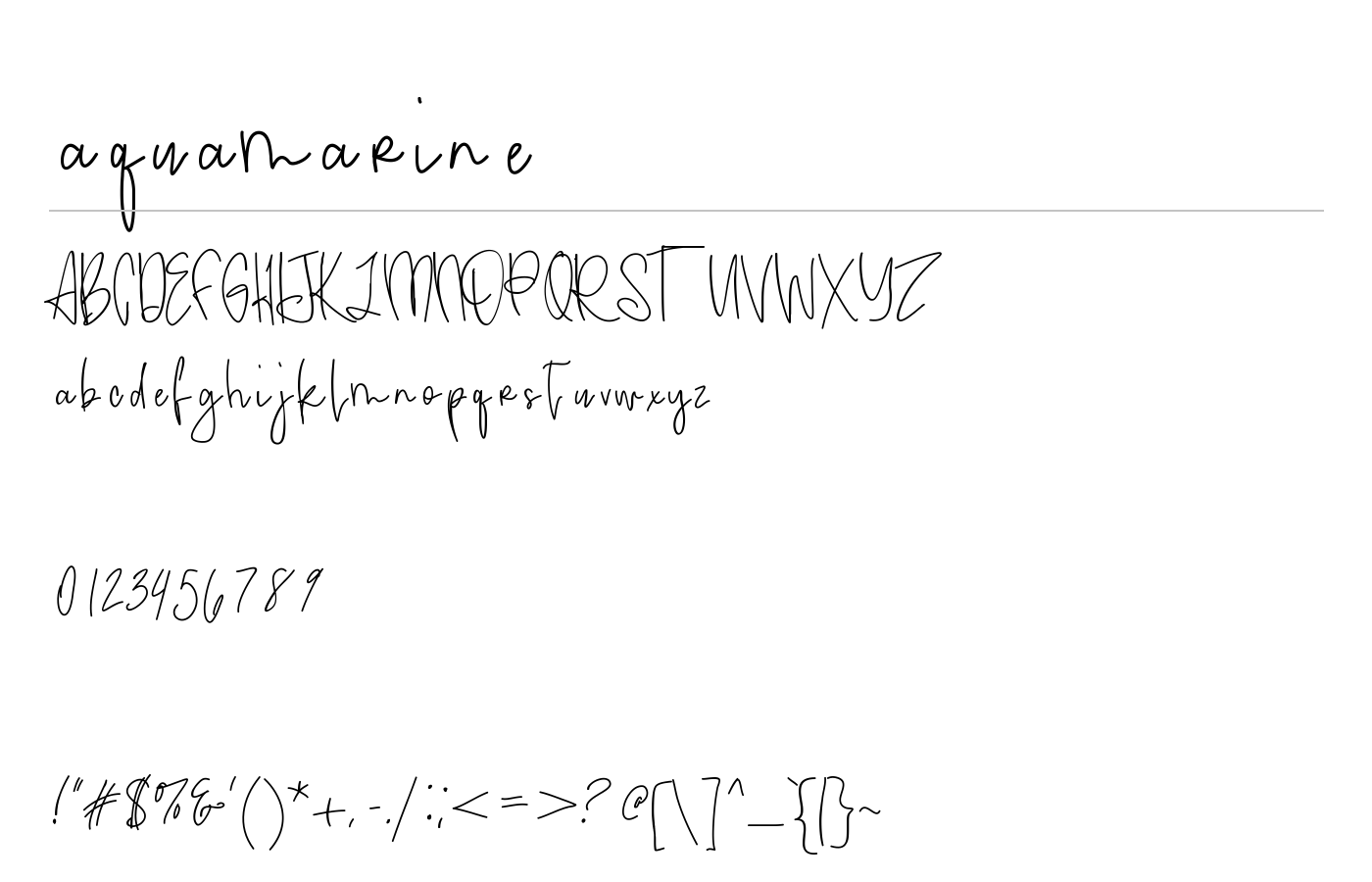
Aquamarine is a delicate, handwritten script font with a casual, airy feel created by its tall, narrow letterforms and light stroke weight. Its playful, slightly quirky style makes it ideal for creative projects, personal branding, or invitations where a friendly, approachable vibe is desired. This font works best in headlines or decorative text, adding a unique, artistic touch without overwhelming the design.
aquamarine Font